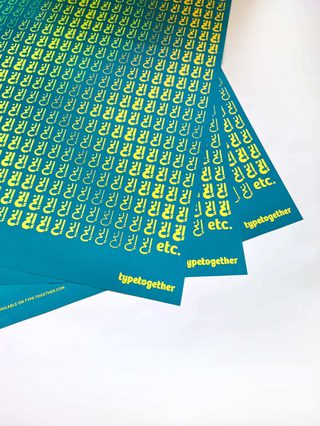
Bree Arabic poster
Celebrating the release of our Bree Arabic type family, this poster uses repeated letterforms, shifting styles, and three neon colours to create a playful composition with a glowing sense of wave-like motion.